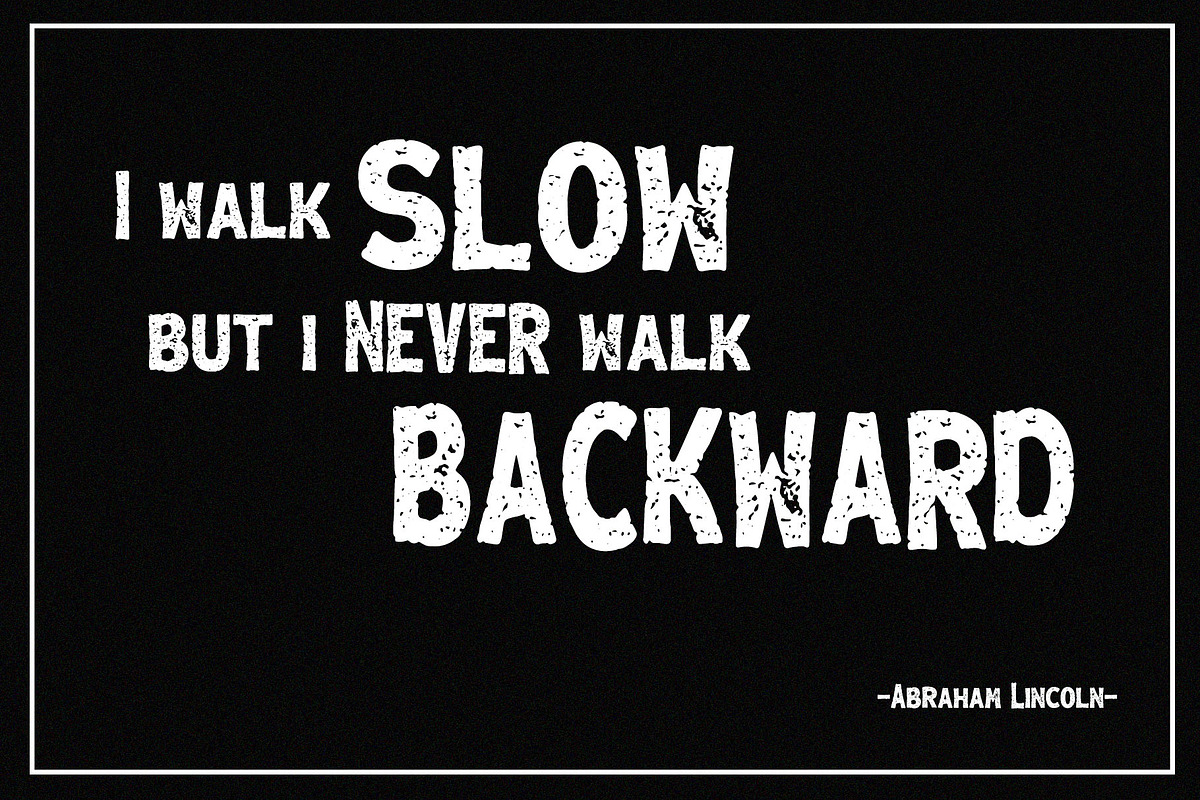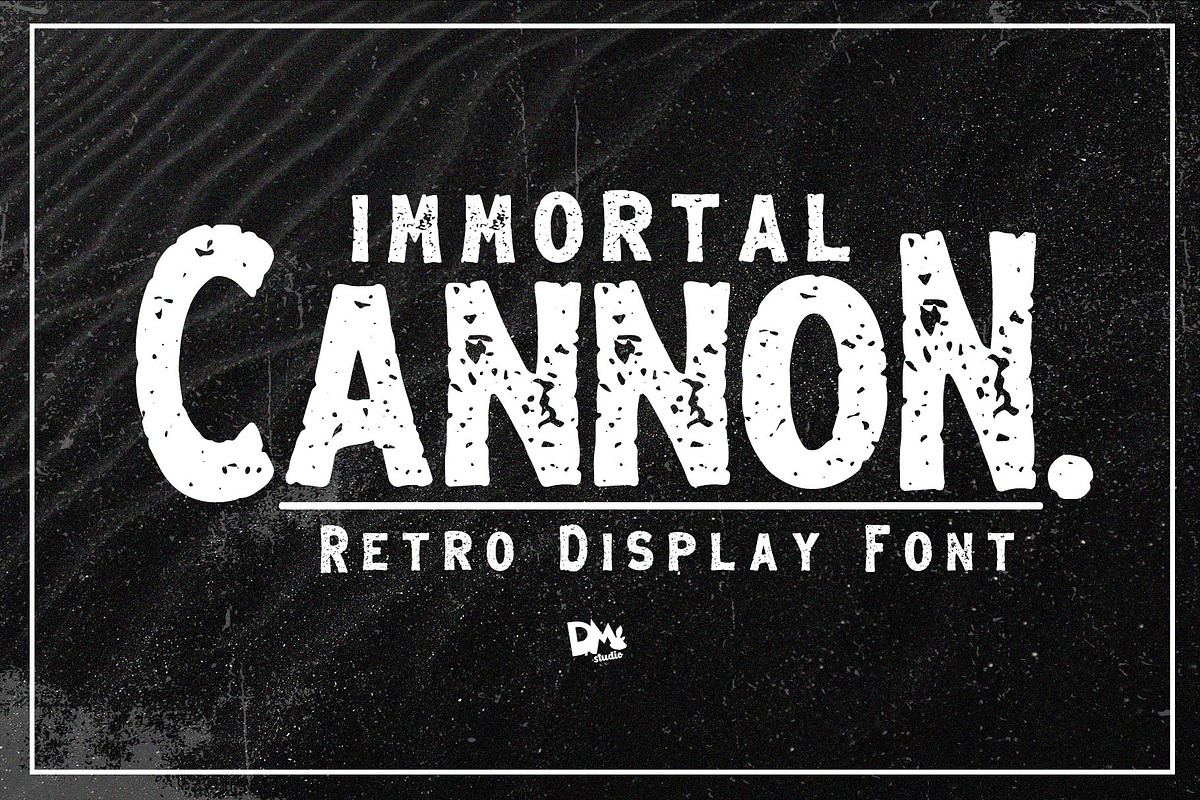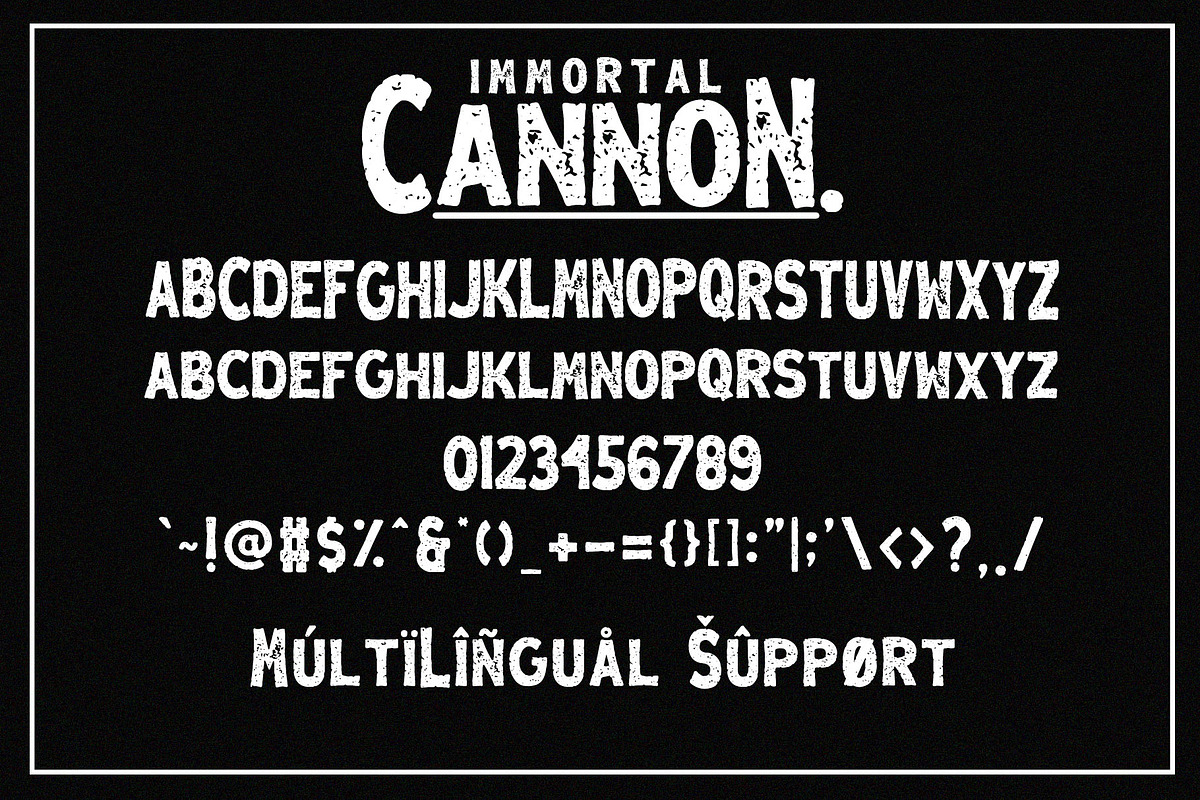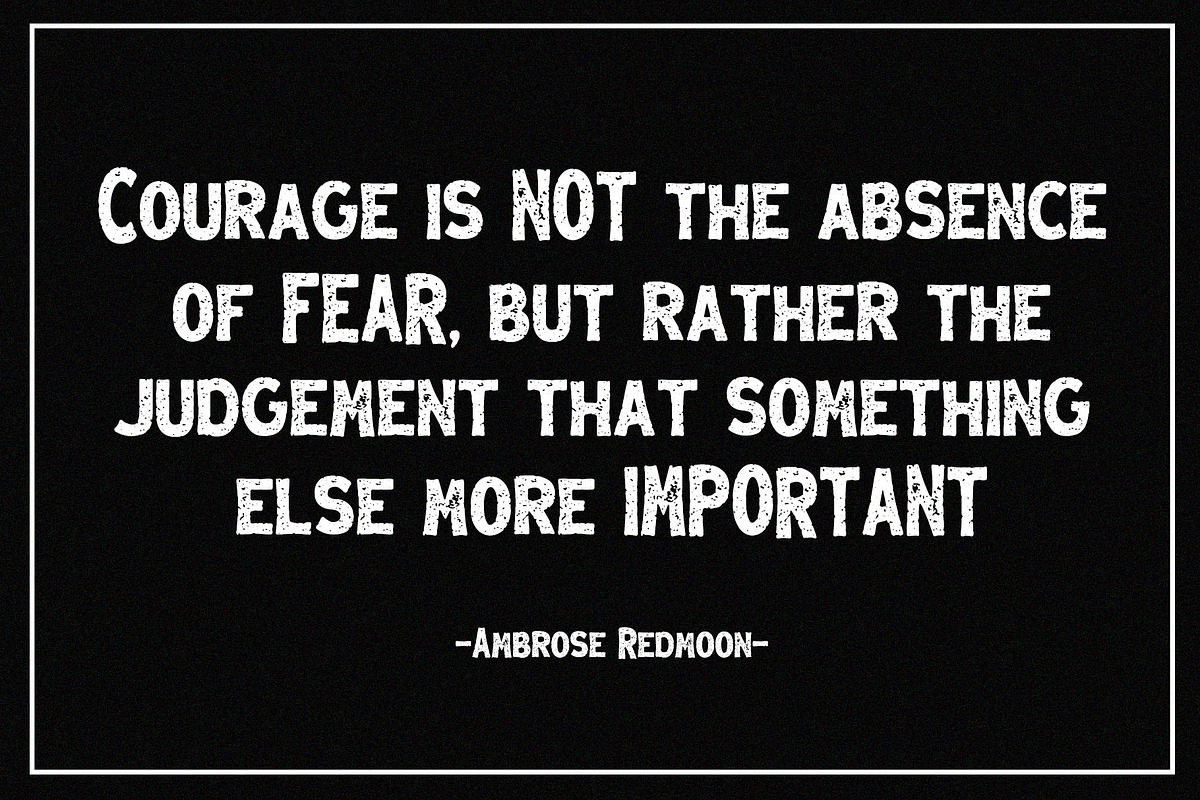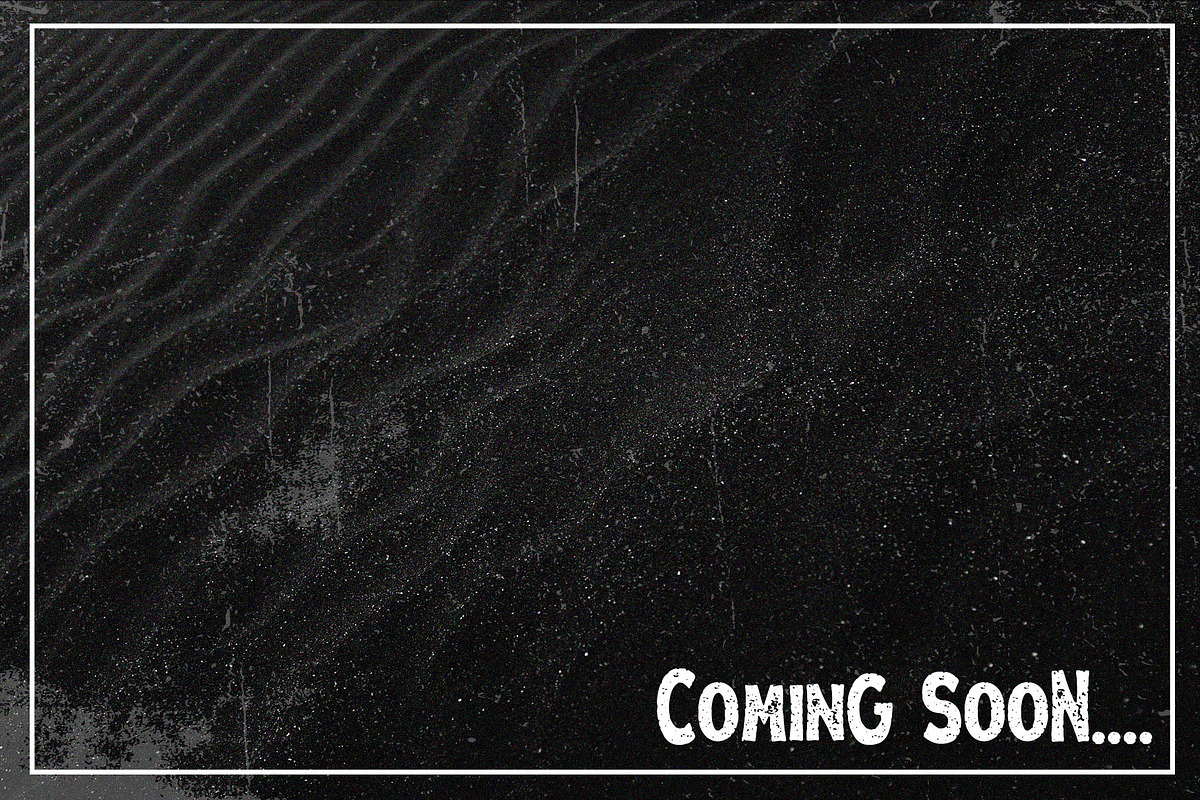
Immortal Cannon - Retro Display Font
All in caps with two size
- All in caps with two size
- Numeral
- Multilingual support
Immortal Cannon - Retro Display Font by Dm Studio fits naturally into Branding, posters, packaging, typography.